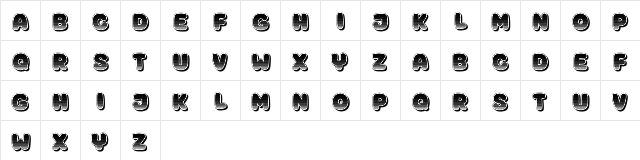
Korvo Hollow Regular
Design Context for Korvo Hollow Typeface
Korvo Hollow is a composed and adaptable typeface that performs quietly and consistently across a wide range of design contexts.
Pro Tip: Use Korvo Hollow in both headline and body roles to test its range before committing to a single application.